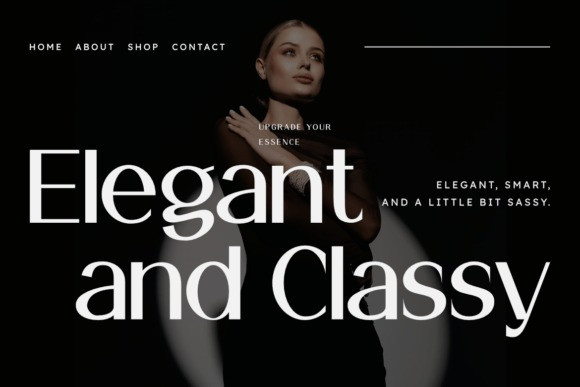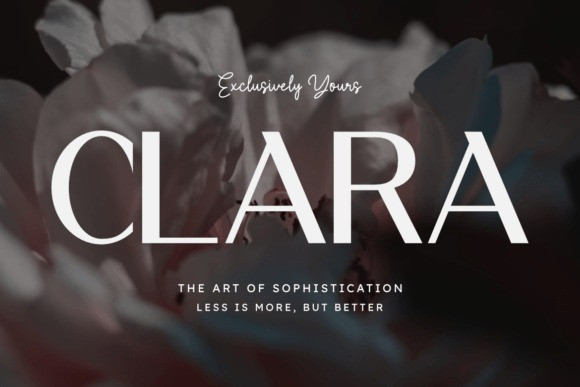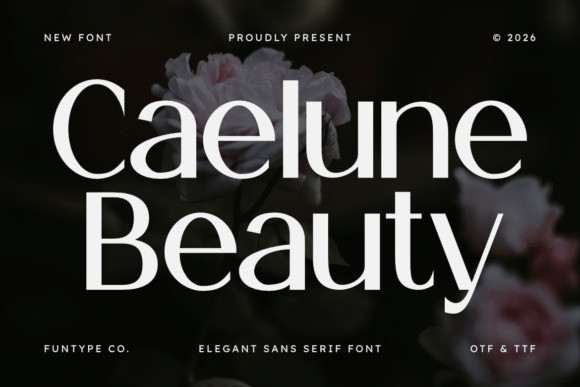
Caelune Beauty Font
Caelune Beauty Font is a high-contrast sans serif font designed for elegance and luxury. Inspired by modern fashion aesthetics and timeless beauty, this font features clean lines with delicate strokes that create a stunning visual balance. It’s a perfect choice for designers who want to bring a premium, upscale feel to their work.
Specifically crafted for display purposes, Caelune Beauty shines in large headlines and branding materials. Its refined letterforms offer a seamless blend of contemporary style and classic grace, making it an essential tool for high-end editorial and lifestyle designs.